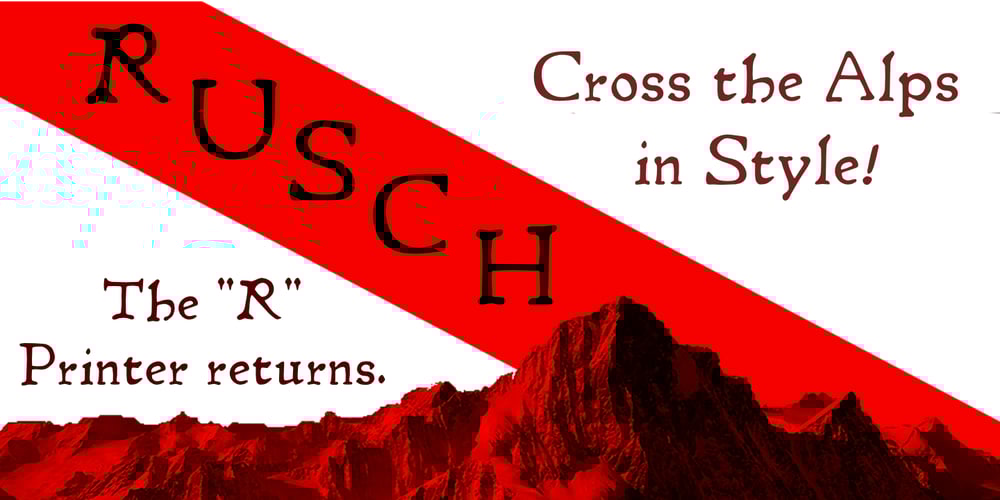
Rusch Font Family was designed by Shane Brandes and published by Proportional Lime. Rusch contains 6 styles and family package options. Adolf Rusch von Ingweiler, was in the 19 th century known mysteriously as the “R” printer. He was the first printer North of the Alps to introduce the new Roman style of type known now as Antiqua. He was active in the city of Strasbourg from around the early 1460’s to 1489. One wonders if the unusual form of “R” was a personal conceit. This font is, therefore, an Antiqua style font and has over a 1000 defined glyphs with wide support for medieval characters that have since fallen out of use. The baseline was slightly tidied up in order to give the printed text an even cleaner look than the original. The letters are very close approximations of the original type catalogued by the “Veröffentlichungen der Gesellschaft für Typenkunde des 15. Jahrhunderts” as Typ.1:103R GfT1197.